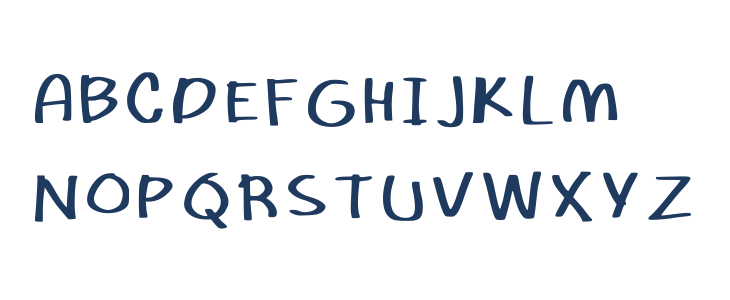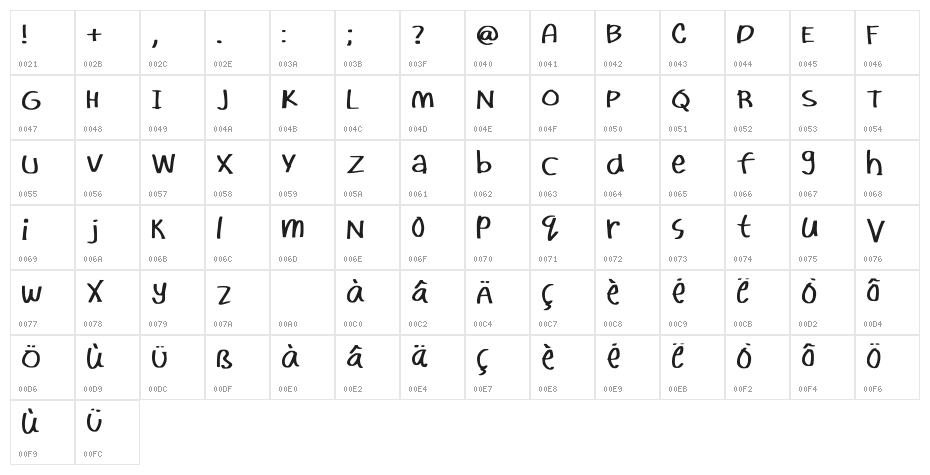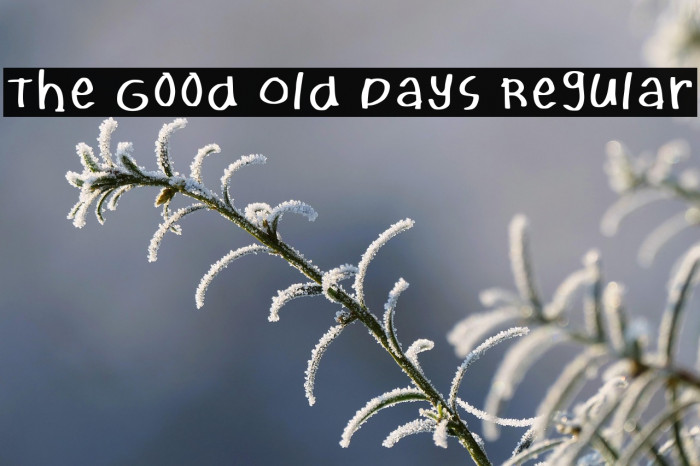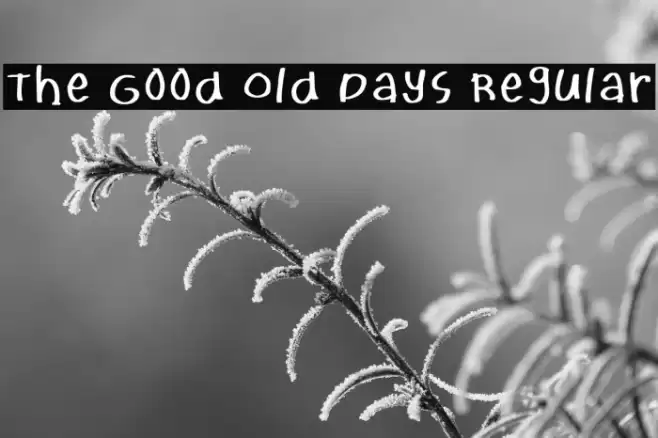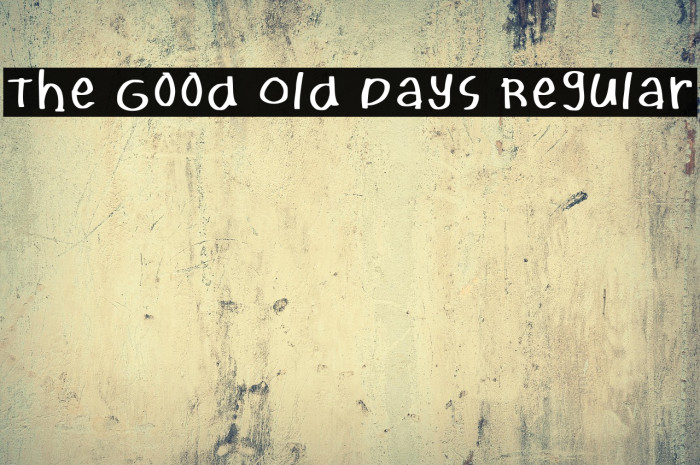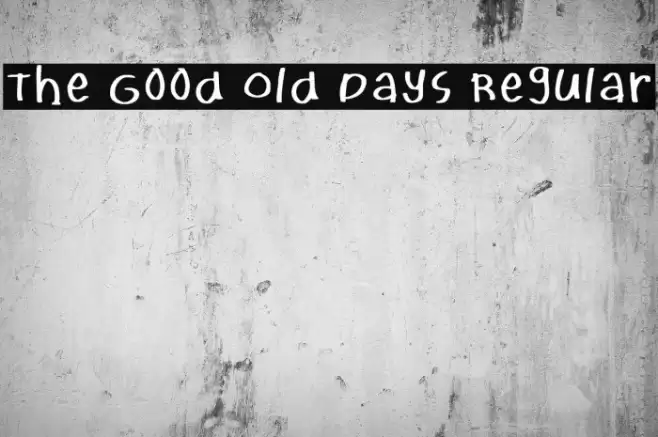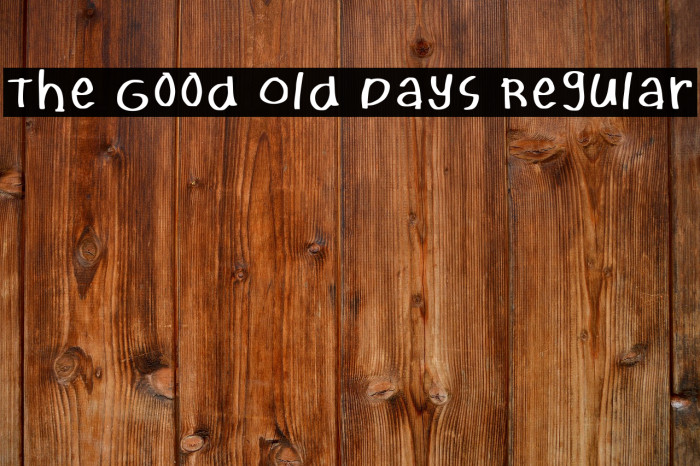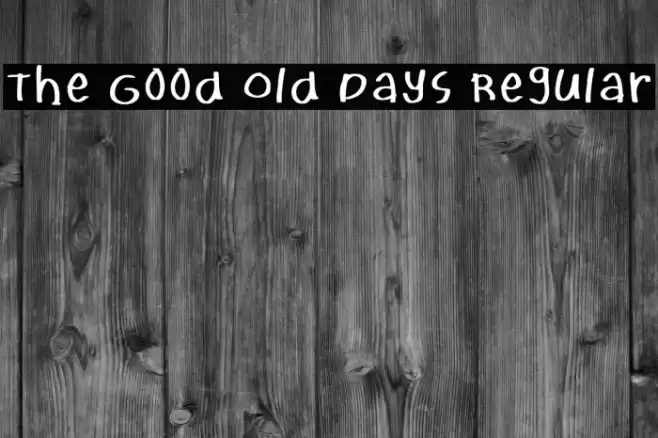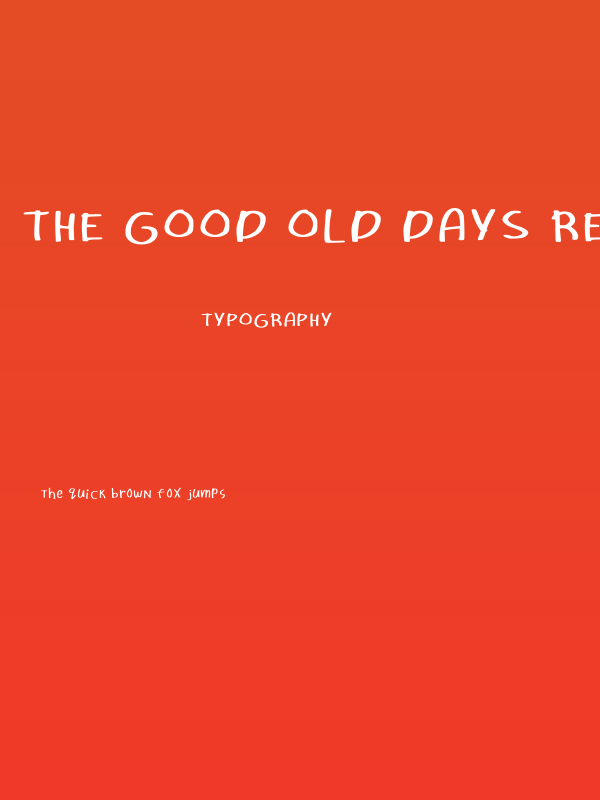
The Good Old Days Regular Font
The Good Old Days Regular Description
A playful, handwritten style font with irregular, casual letterforms.
| Overall Style | Casual, Playful, Informal |
| Use Case | Headlines, Body text, Logos, Invitations |